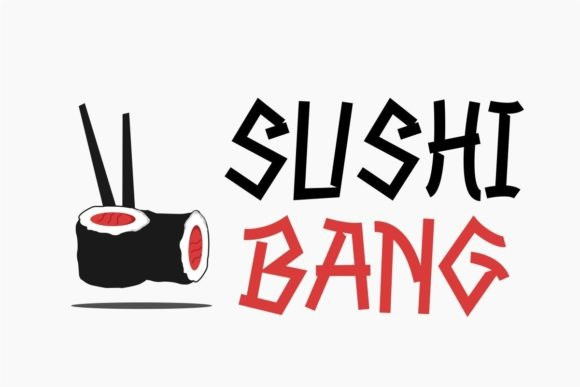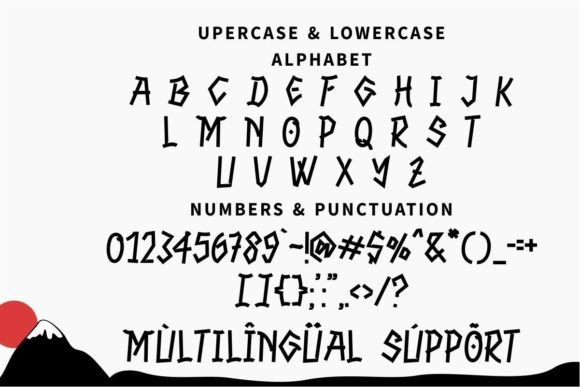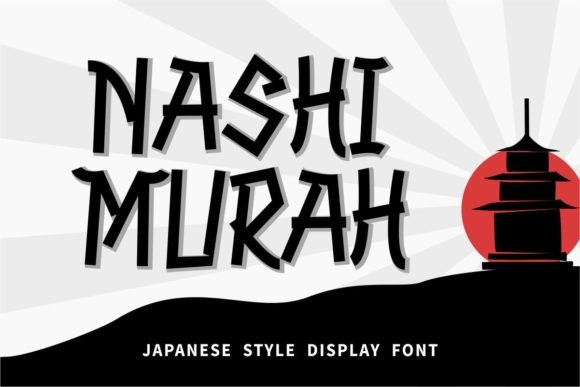
Nashi Murah Font
Nashi Murah Font is an incredibly unique, Japanese inspired display font. It will look stunning on any food menu, poster flyer or print.
Use this font for your designs and explore its endless possibilities.